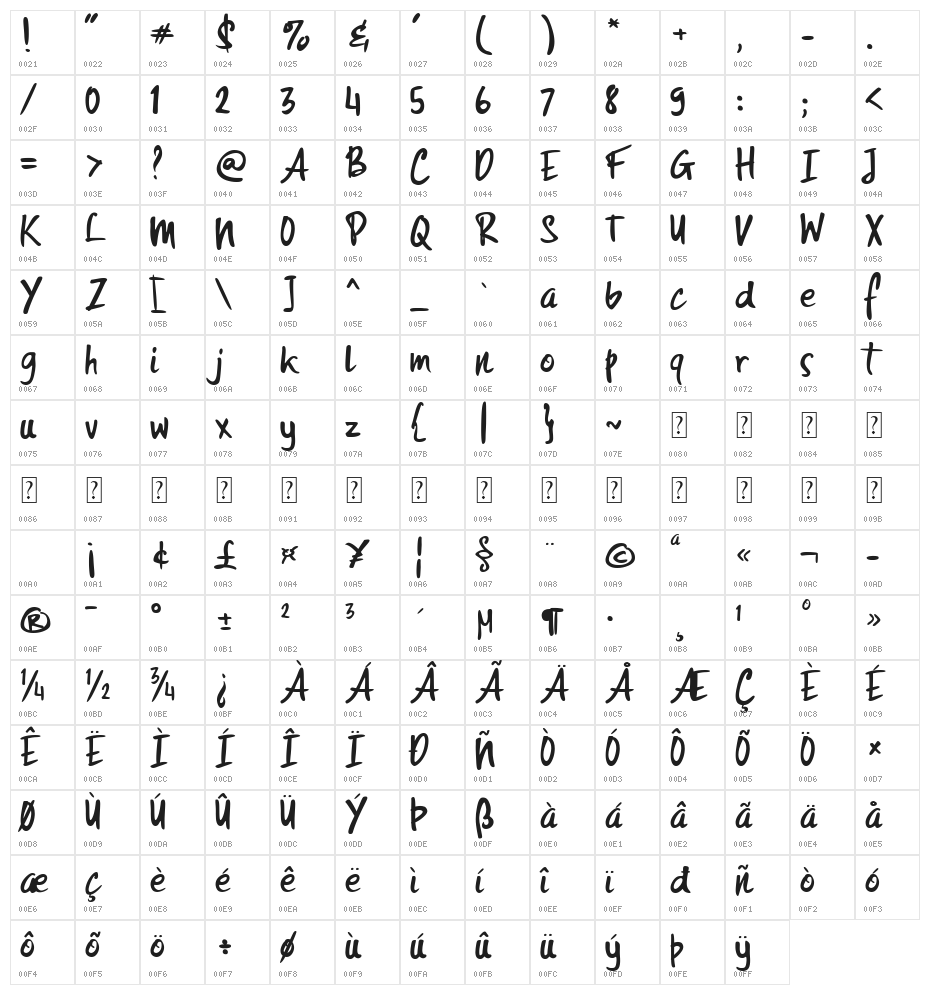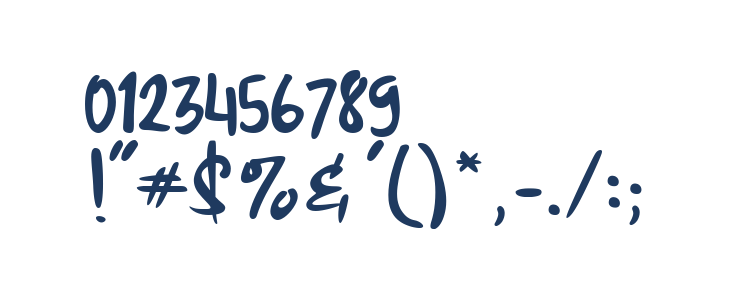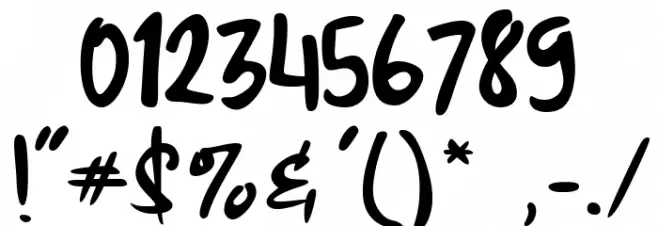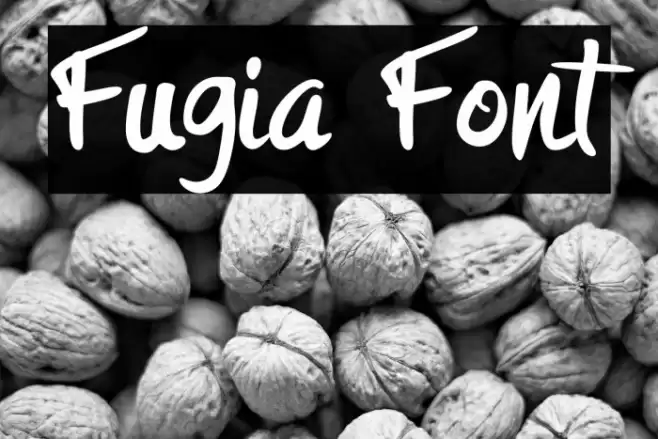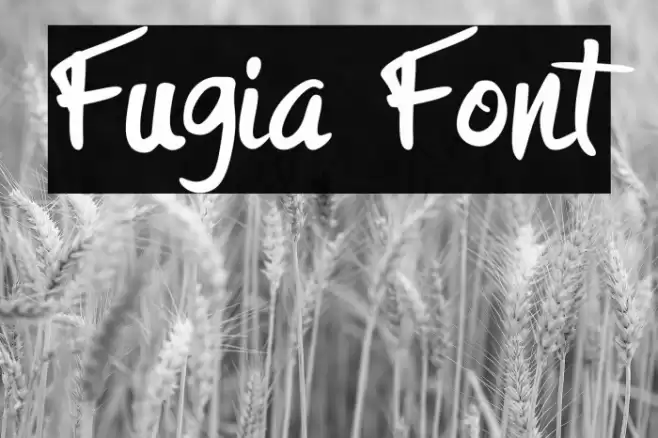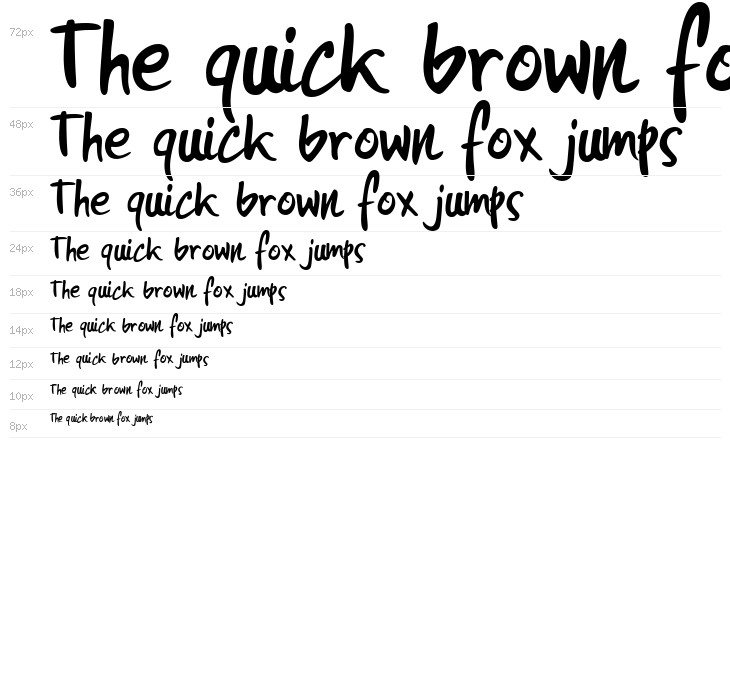
Fugia Font
Fugia Description
This font features a bold, handwritten style with a playful and energetic appearance. The characters are slightly slanted, giving a dynamic and informal feel. The strokes are thick and consistent, providing a strong visual impact. The uppercase and lowercase letters maintain a cohesive style, with rounded edges and a casual flair. Numbers and special characters are designed to match the overall aesthetic, ensuring versatility across different uses. The font's lively and approachable nature makes it suitable for creative and informal projects.
| Proposed Projects | Ideal for greeting cards, posters, social media graphics, and branding that requires a personal touch. |